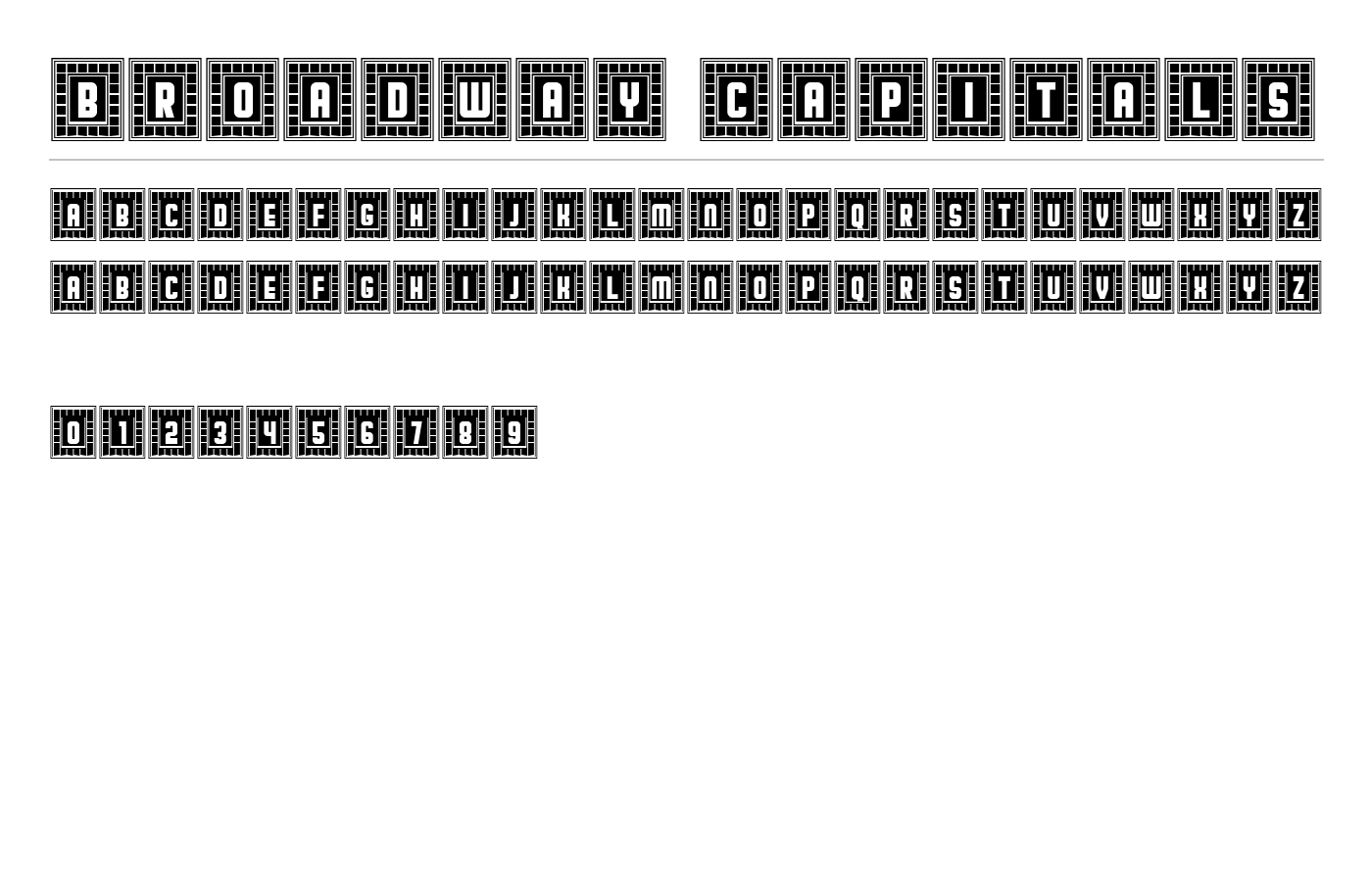
Broadway Capitals is a bold, decorative display font with a distinct Art Deco vibe, featuring all-uppercase letters enclosed in geometric frames. Its high contrast and stylized, blocky letterforms evoke a glamorous, vintage atmosphere, making it ideal for eye-catching headlines, posters, and branding that aims to convey luxury and retro sophistication. This font works best in designs where dramatic impact and a nostalgic flair are desired.
Broadway Capitals Font
About Broadway Capitals Font
| Font family | Broadway Capitals Font |